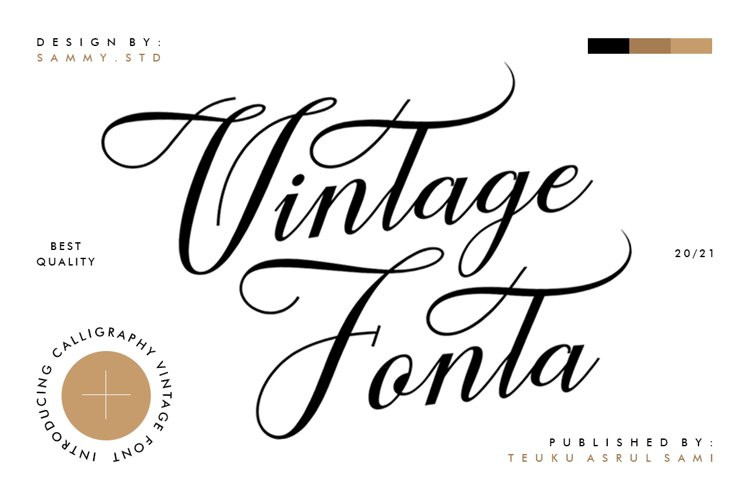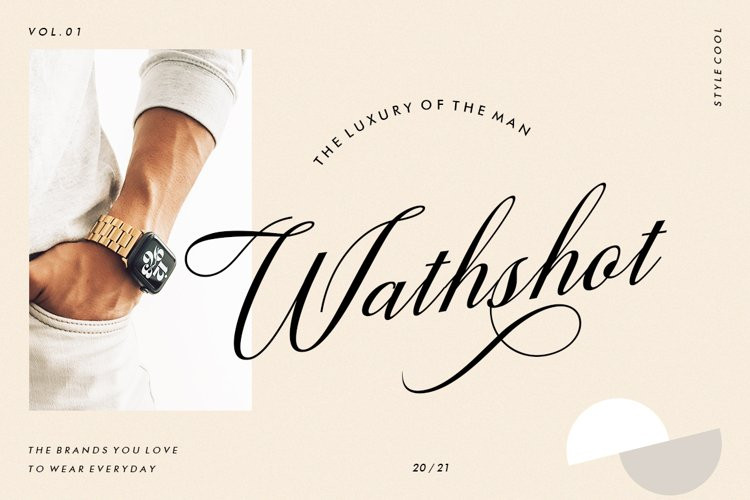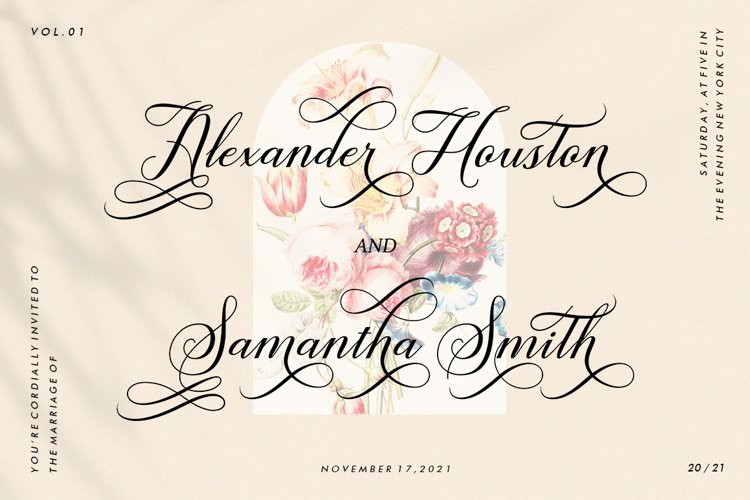
Vintage Fonta Font
Vintage Fonta FontIntroducing Vintage Fonta.
Vintage Fonta is a classic calligraphy font. Here you will get a beautiful classic font. This font is available in several modern swirls that can make your work look elegant, sweet and perfect.
With this style, this font will be suitable for logos, branding projects, design of household appliances, product packaging, mugs, quotes, posters, shopping bags, logos, t-shirts, book covers, business cards, invitation cards, greeting cards, and all your other beautiful projects.